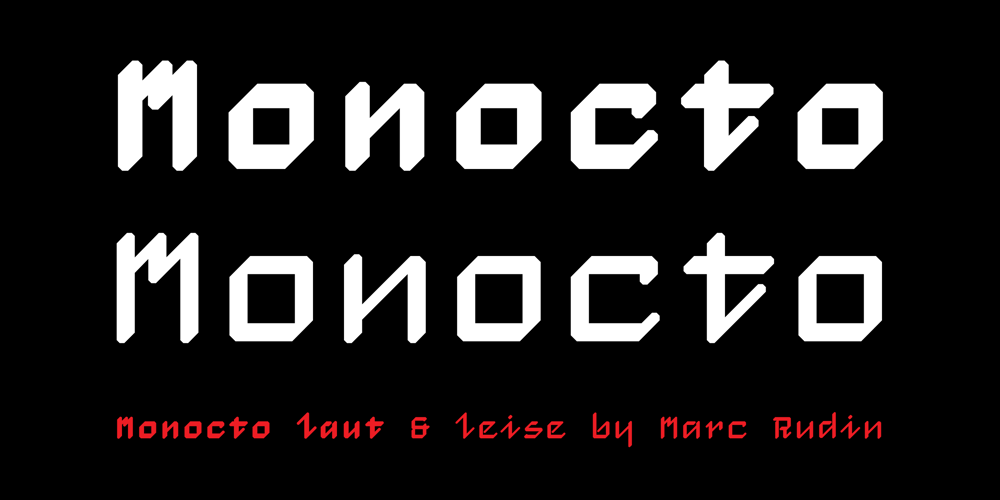
Monocto Font Family was designed by Marc Rudin and published by Lafonts. Monocto contains 2 styles and family package options. Monocto is an upright italic, clearly evidenced by the lowercase letters a, e, f, g, i, k, l, v, w, x, y and several capitals. On one hand, the design is inspired by an historical German running hand written with a pen angle of 45°, and on the other, by rational, utilitarian monospace types, similar to those designed for the mechanical typewriter during the Industrial Revolution. As the writing tool touches the paper, a double-square with broken corners is produced, which then, according to ductus, transforms itself into letter components that are either 90°-verticals or 45°-diagonals. The systematic geometry of Monocto offers unexpected design possibilites.